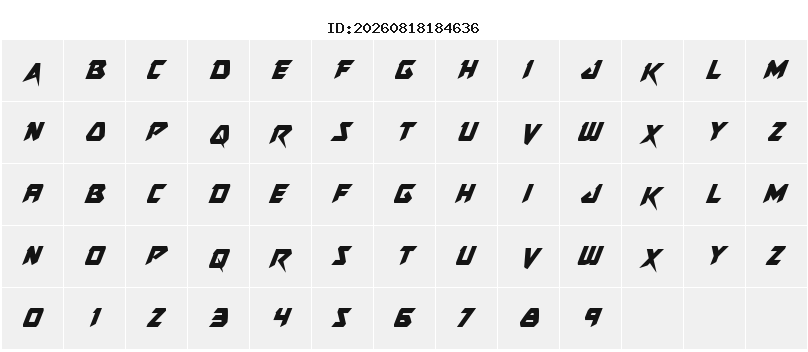
Skirmisher Condensed Italic Preview
• Font Name: Skirmisher Condensed Italic
• Font Style: Condensed Italic
• Full Font Name: Skirmisher Condensed Italic
About Skirmisher Condensed Italic.ttf
Skirmisher Condensed Italic.ttf is a modern, elegant sans-serif font designed for ultimate readability and visual harmony. Perfect for branding, headlines, web design, and print materials.